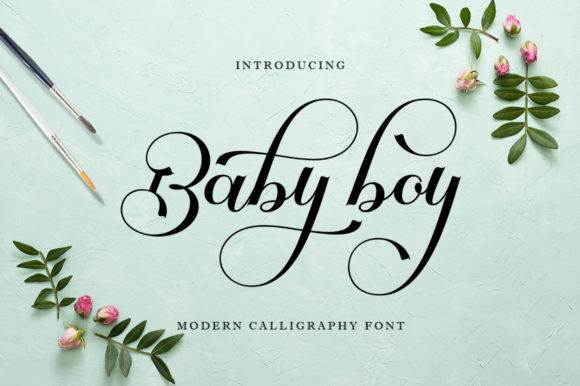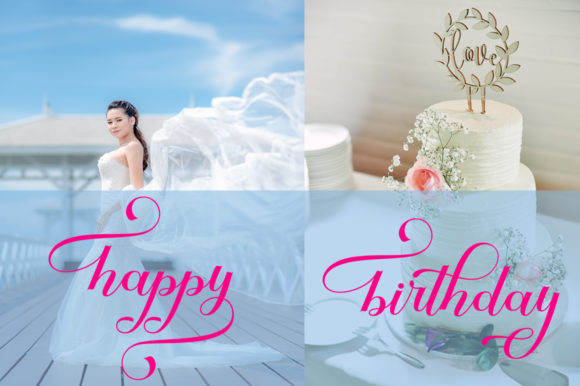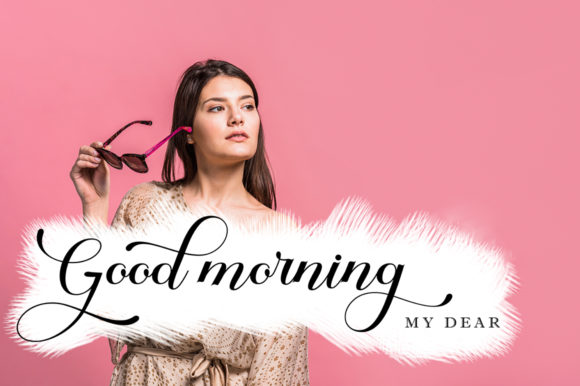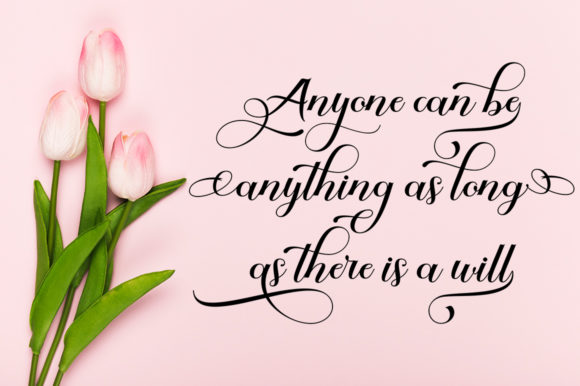
Baby Boy Font: Elegant Calligraphy for Wedding & Logo Design
About the Baby Boy Font
Welcome to the world of Baby Boy Font, a typeface that will inspire your next great project. Baby Boy is a romantic and elegant handwritten font. It looks beautiful on baby shower invitations, thank you cards, quotes, greeting cards, logos, business cards and every other design which needs a dreamy touch.
Its elegant, flowing forms make it ideal for projects requiring a touch of delicate charm, such as wedding stationery, branding for boutiques, or packaging for luxury goods. However, its low x-height and decorative flourishes make it unsuitable for extended body text or UI elements where readability is paramount.
Baby Boy pairs well with clean sans-serif fonts like Lato or Open Sans for a balanced contrast, or with a classic serif like Garamond for a more traditional feel. A playful script font could also complement its romantic nature, provided it doesn’t overpower the main text.
The font’s overall personality is romantic and sophisticated, yet approachable. It projects a sense of gentle luxury and is best suited to brands that wish to convey a sense of timeless elegance and refined taste.